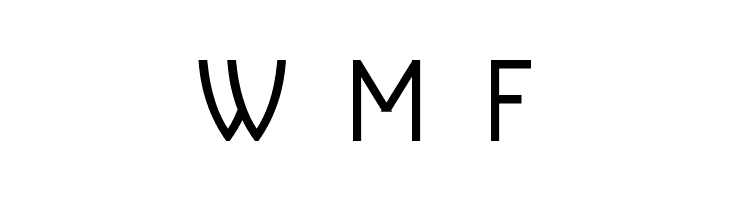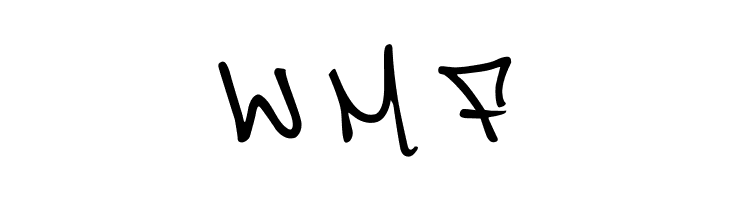
A bold, expressive brush-style font with a dynamic, hand-painted look.
A whimsical and decorative font with playful curls and swirls.
A bold, hand-drawn font with an expressive and dynamic style.
A modern, geometric sans-serif font with a clean and balanced design.
A bold, modern sans-serif font with excellent readability and versatility.
Bold, italicized sans-serif font with a modern and dynamic style.
A modern, italicized font with a sleek and fluid style.
A casual, handwritten font with a playful and informal style.